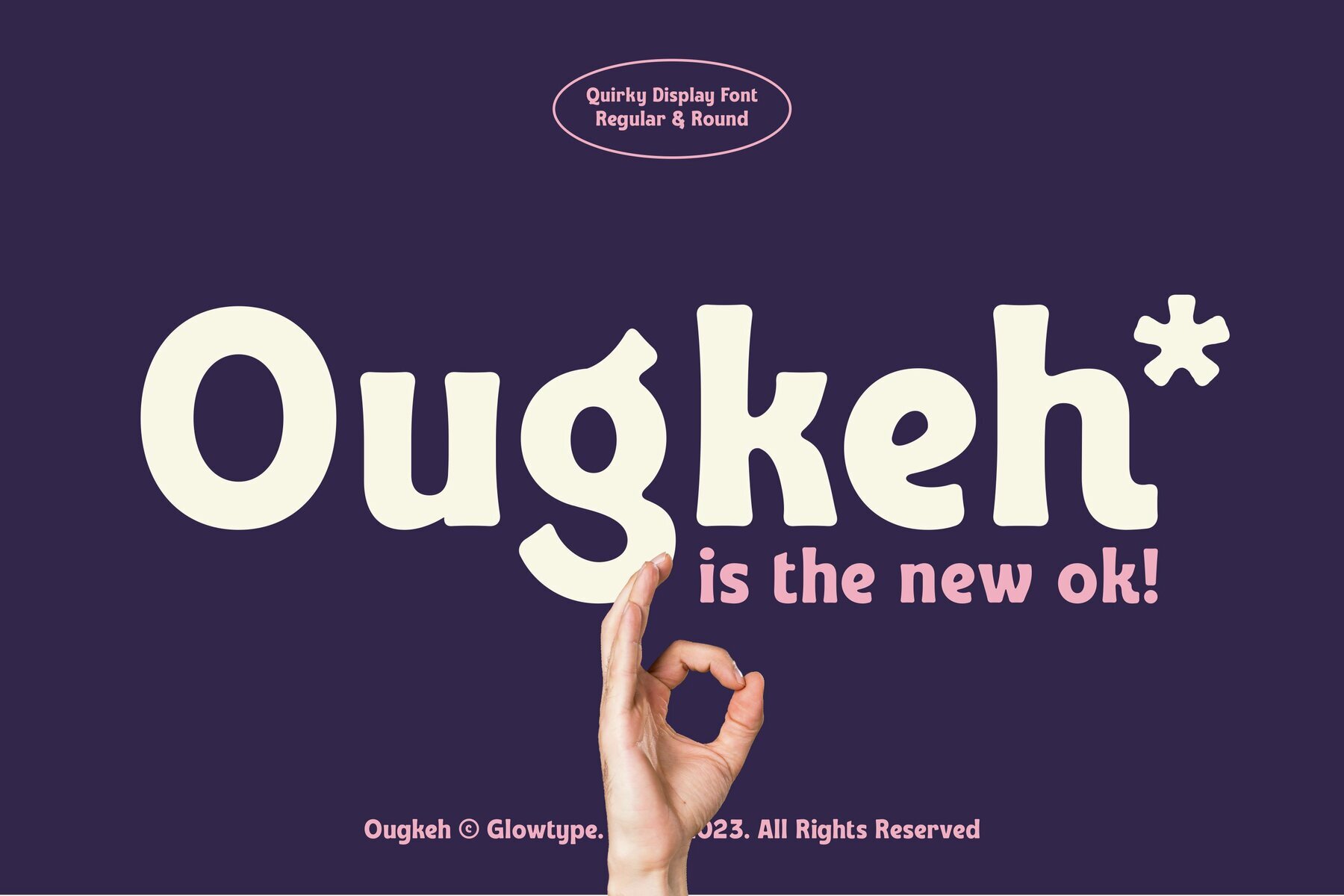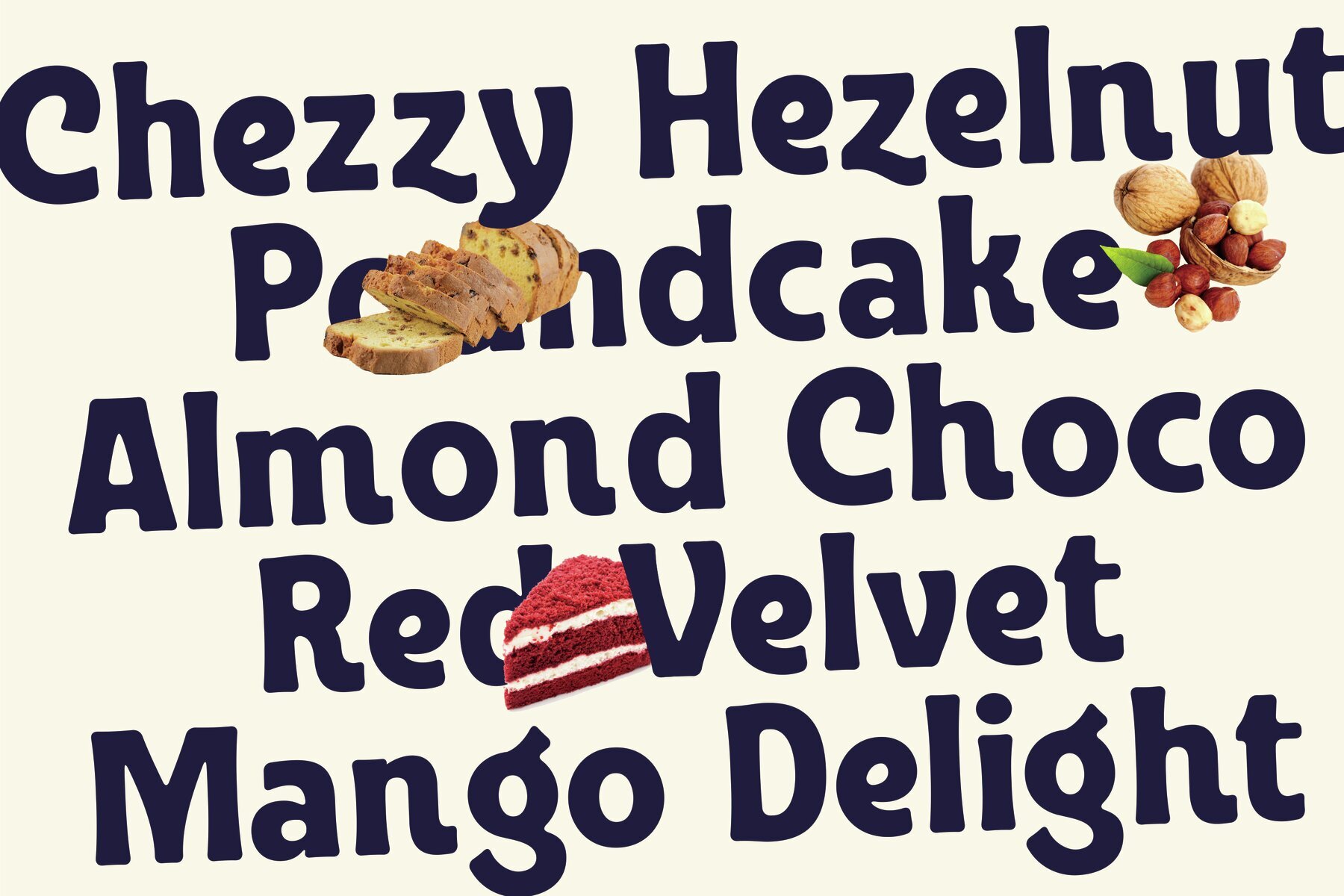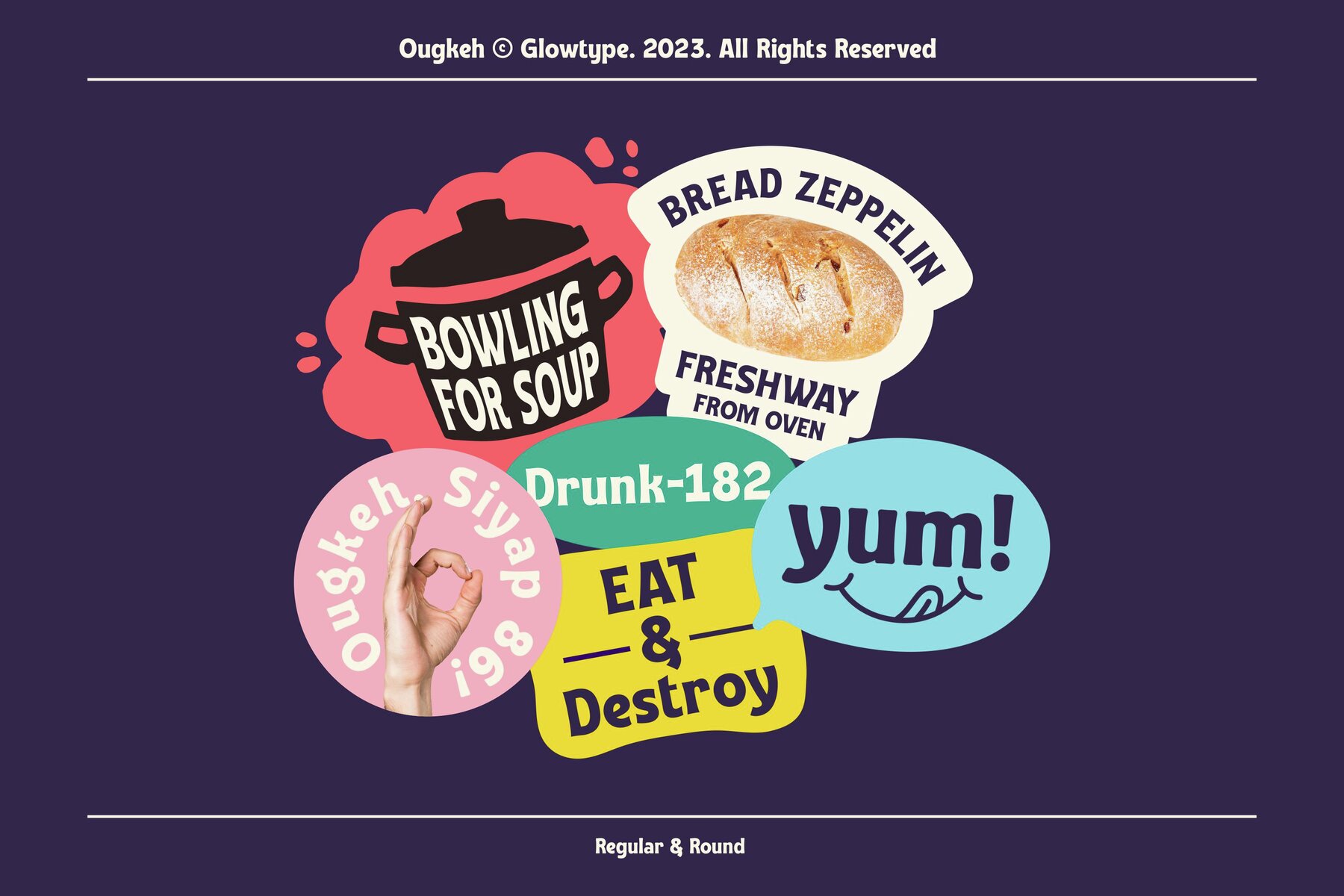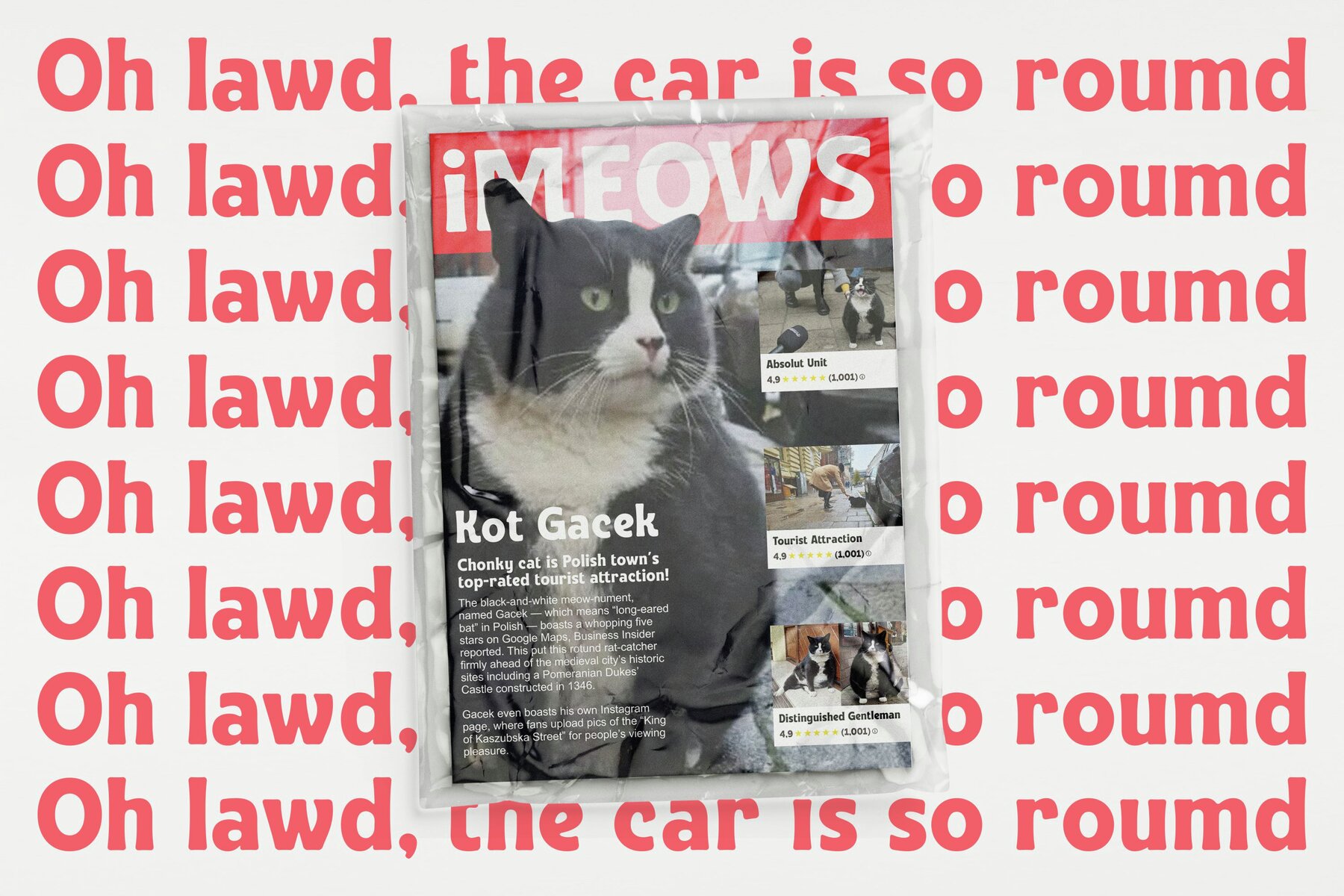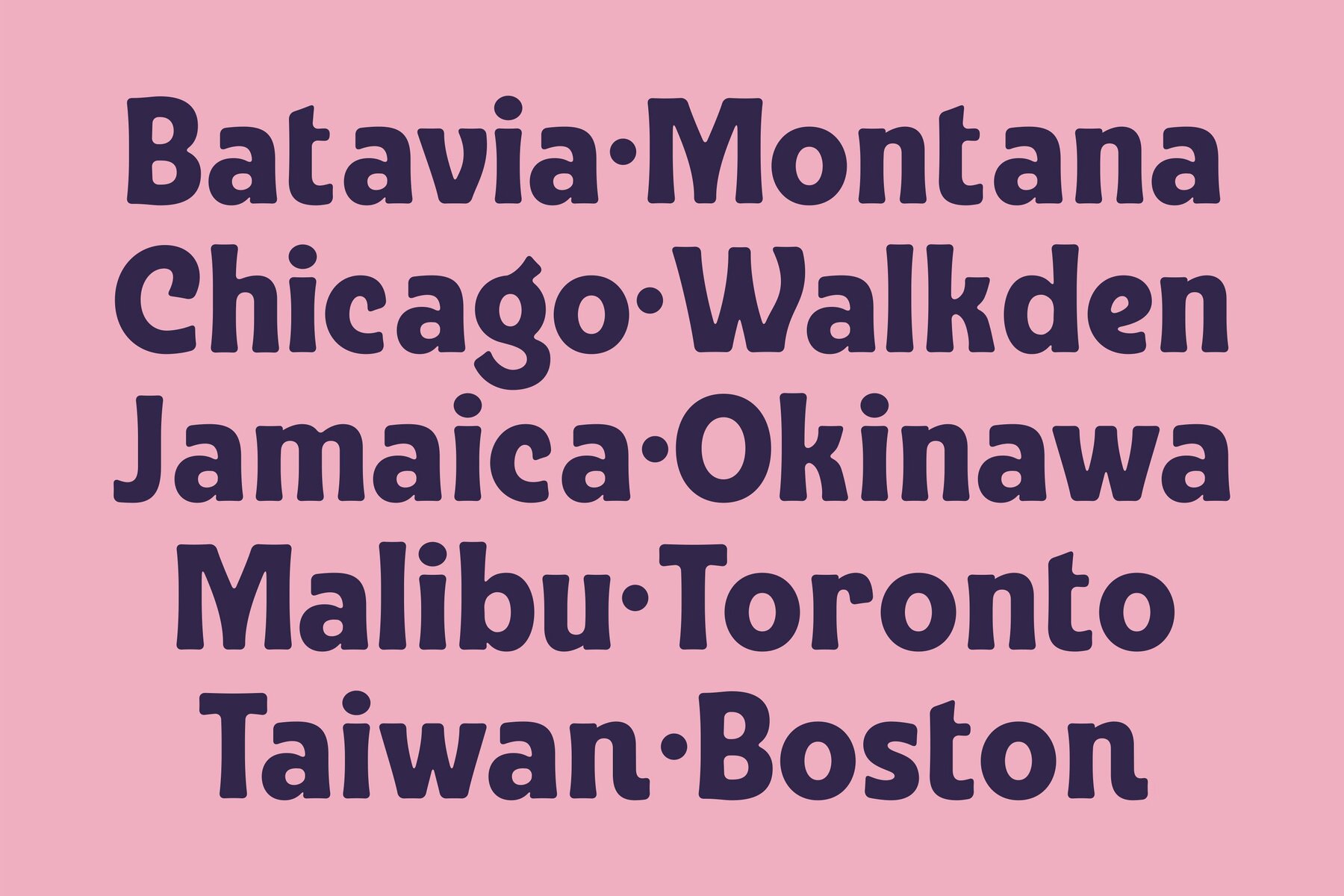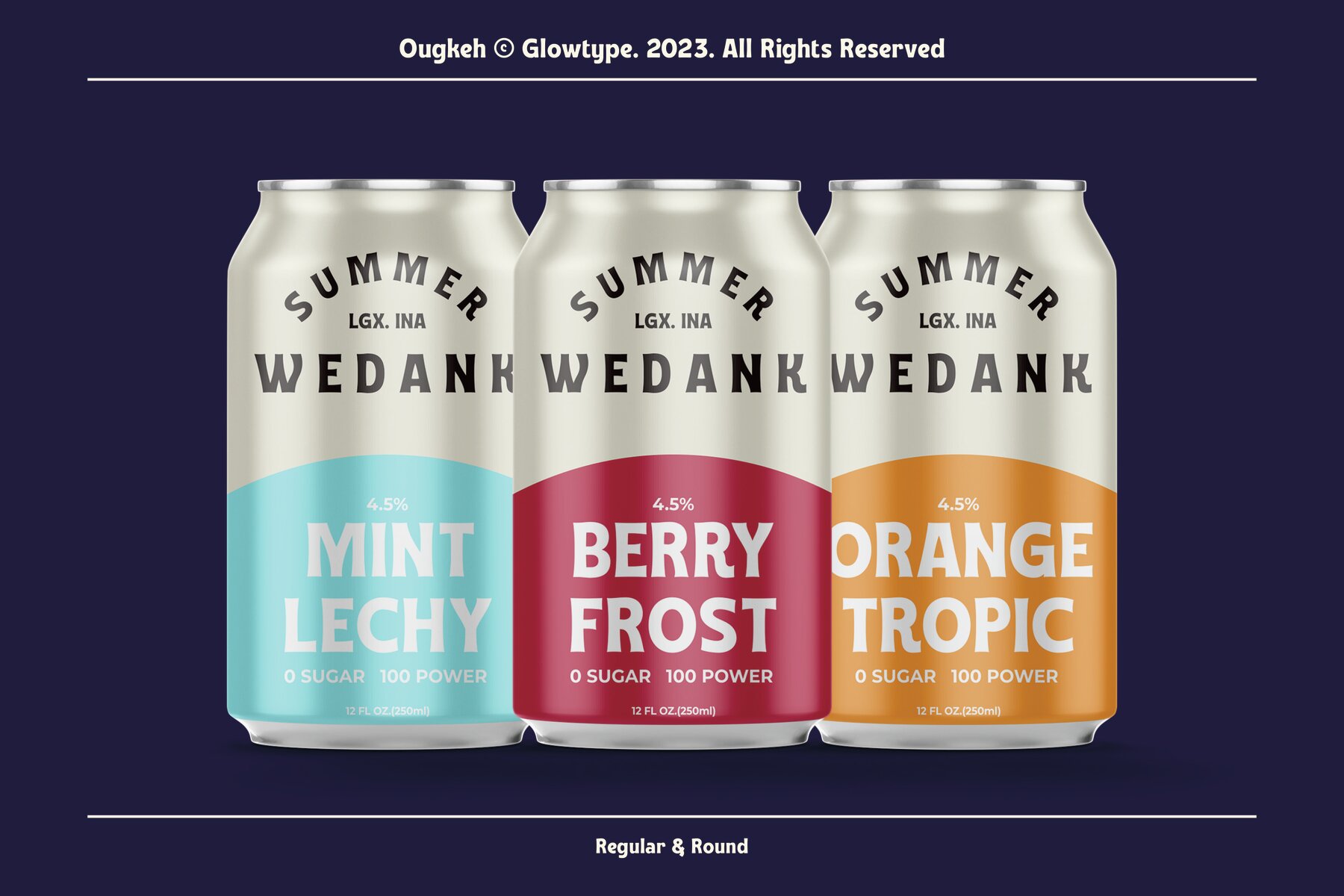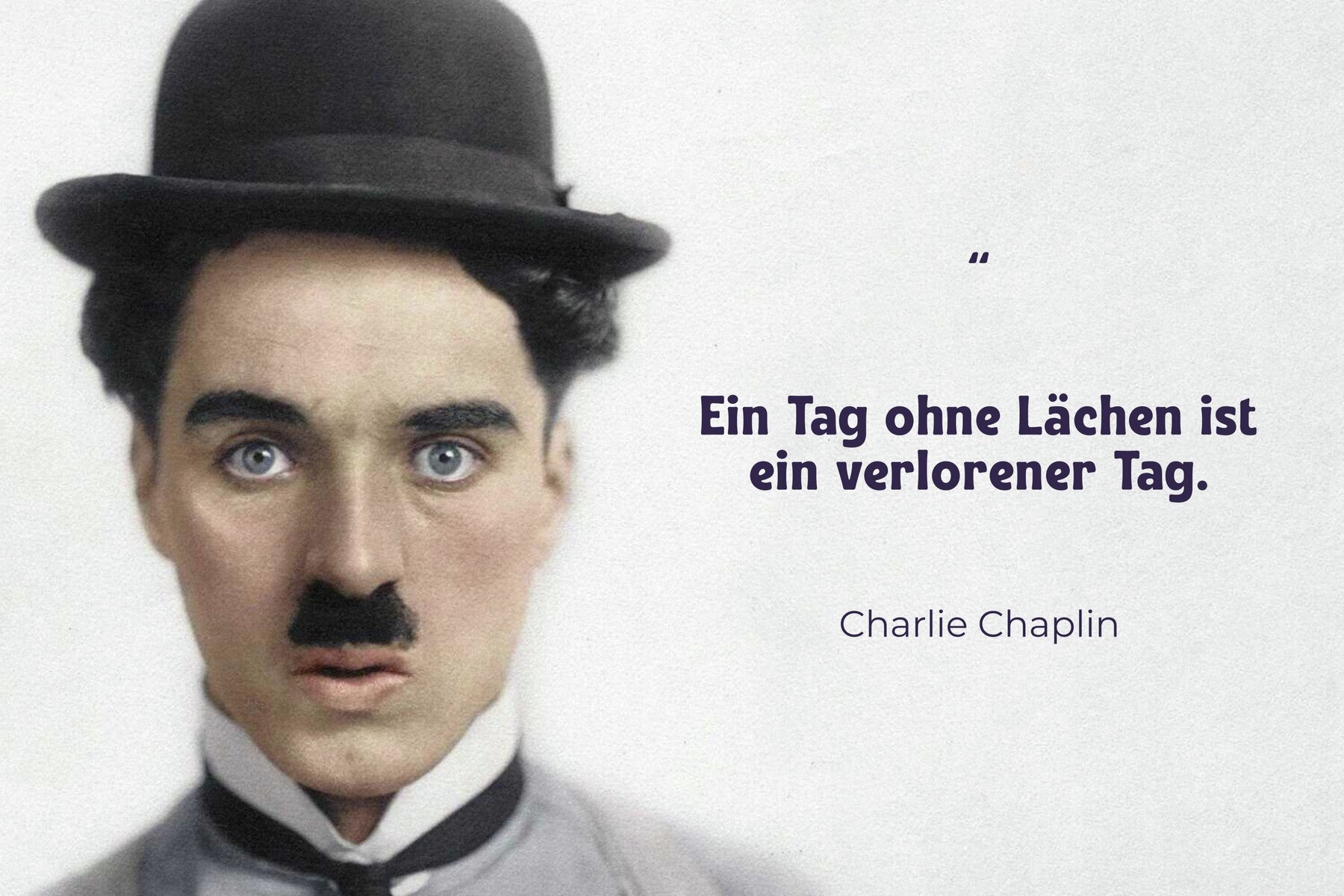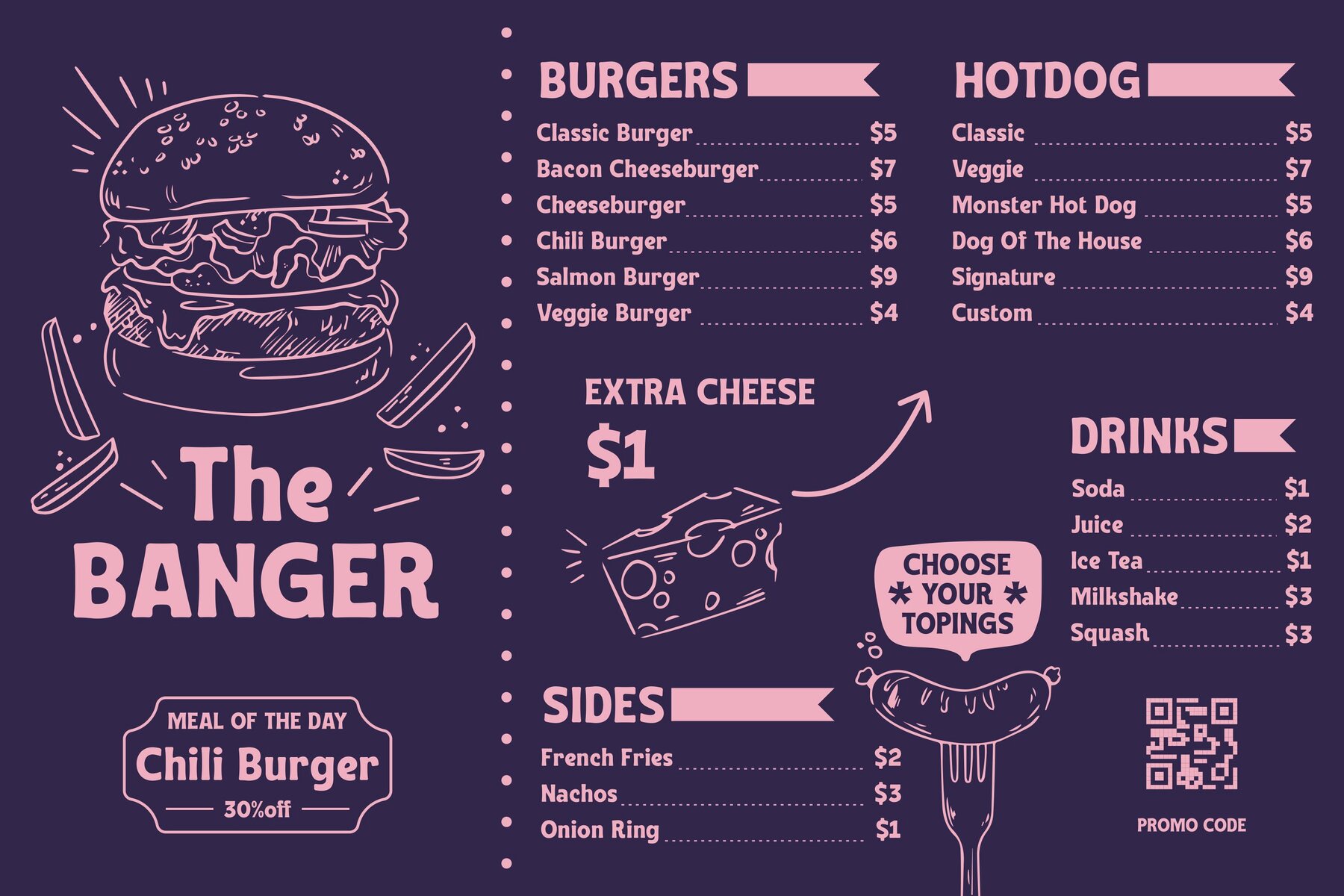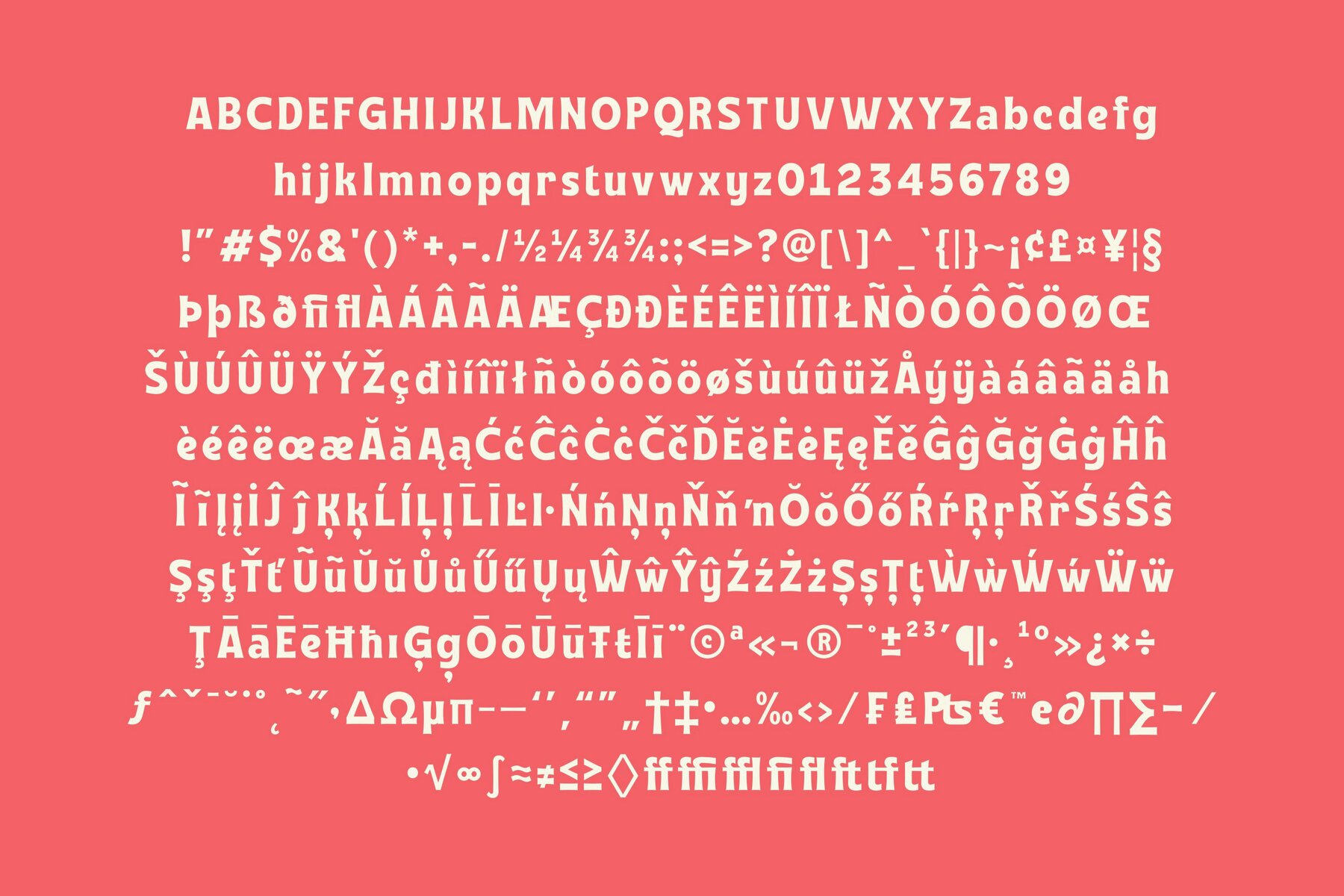
Ougkeh Font
Typography enthusiasts will find Ougkeh a delightful addition to any creative project. Its playful personality shines through with thick strokes and two distinct styles: regular and round. Designed for versatility, Ougkeh complements a wide array of branding needs, from the vibrant energy of a food business to the chic aesthetics of the fashion industry or the vivid pages of a magazine.Ougkeh: Playful Style with a Quirky Touch
Perfect for those looking to infuse their brand with character and charm.